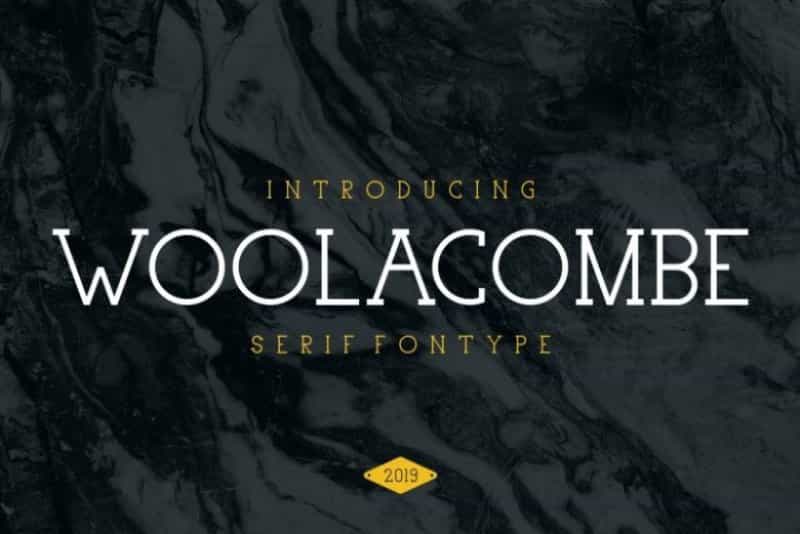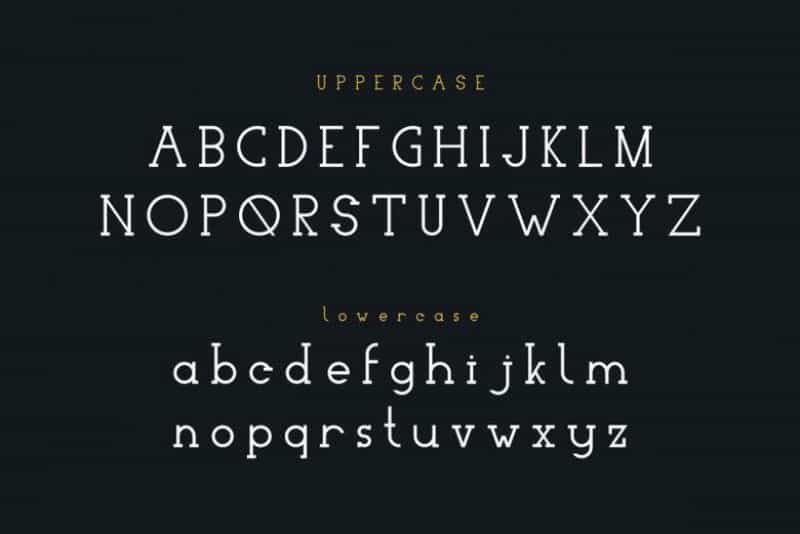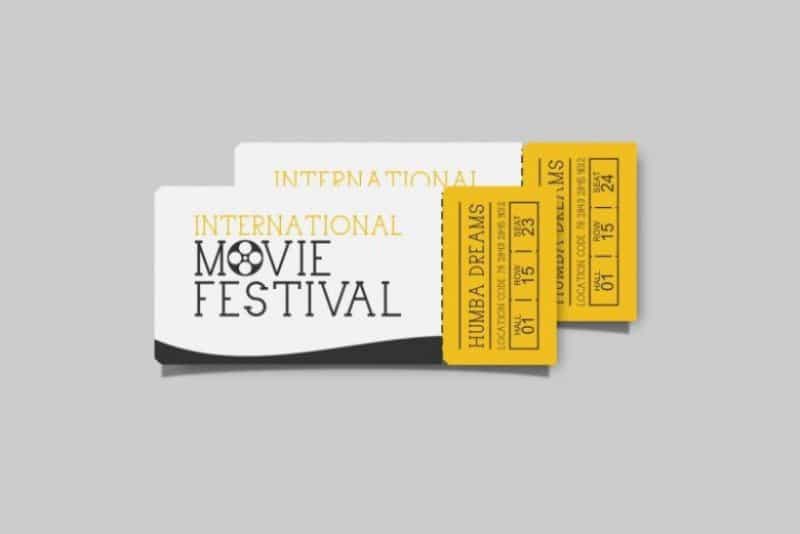
Woolacombe is a serif family font. with a distinctive shape and an exclusive appearance. It’s an elegant font for many purposes : A logo, branding, stationery, business card , poster and flyer are among the things that this font can be used for. It will work on both PC & Mac with simple installations.